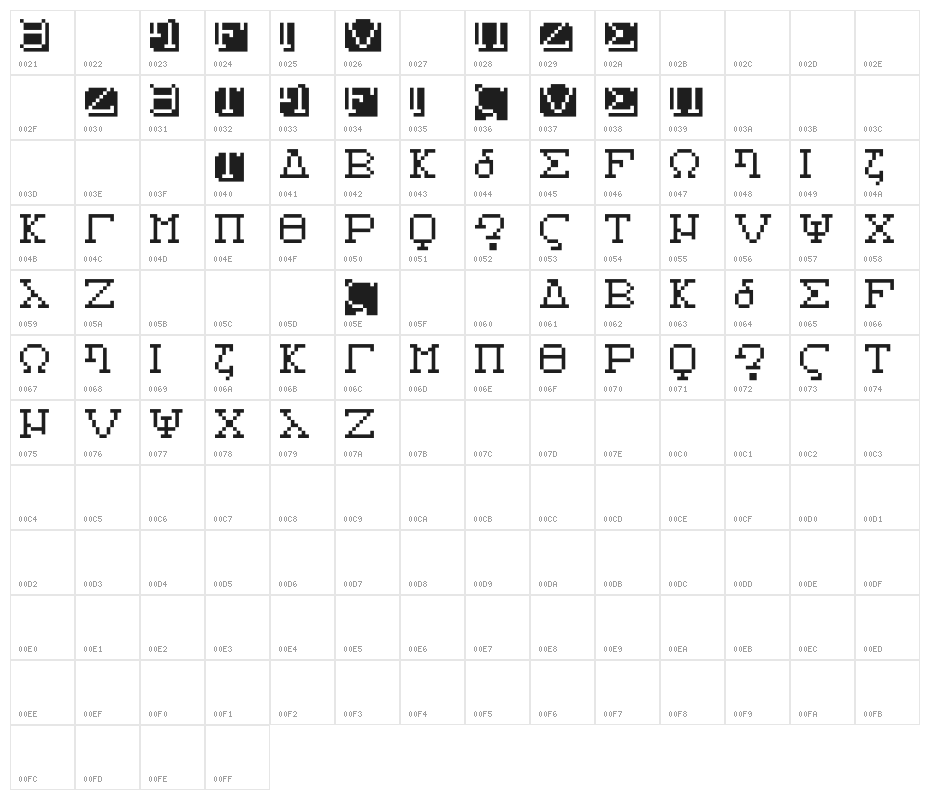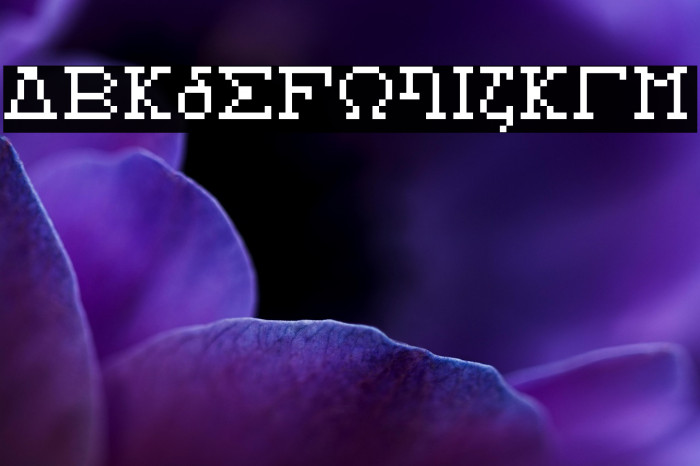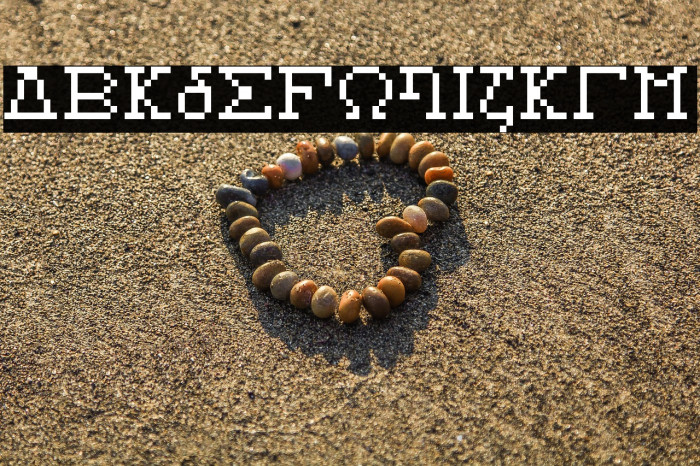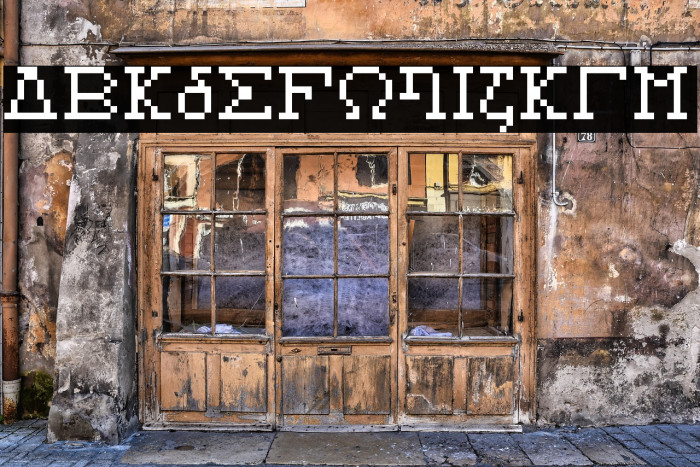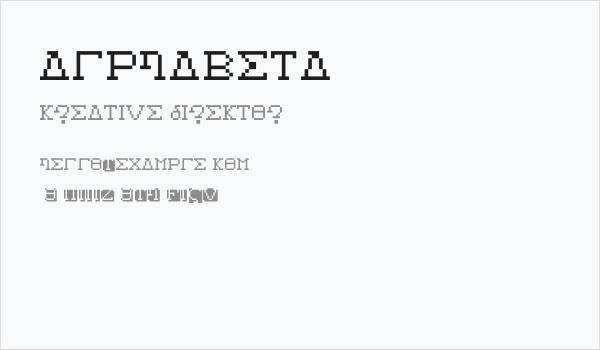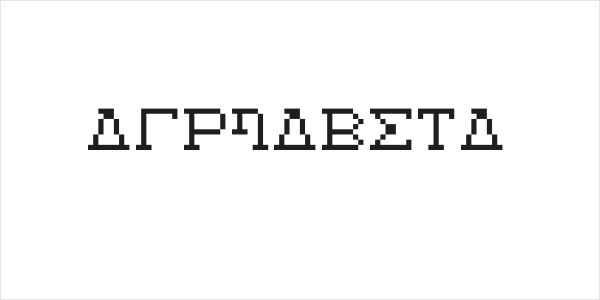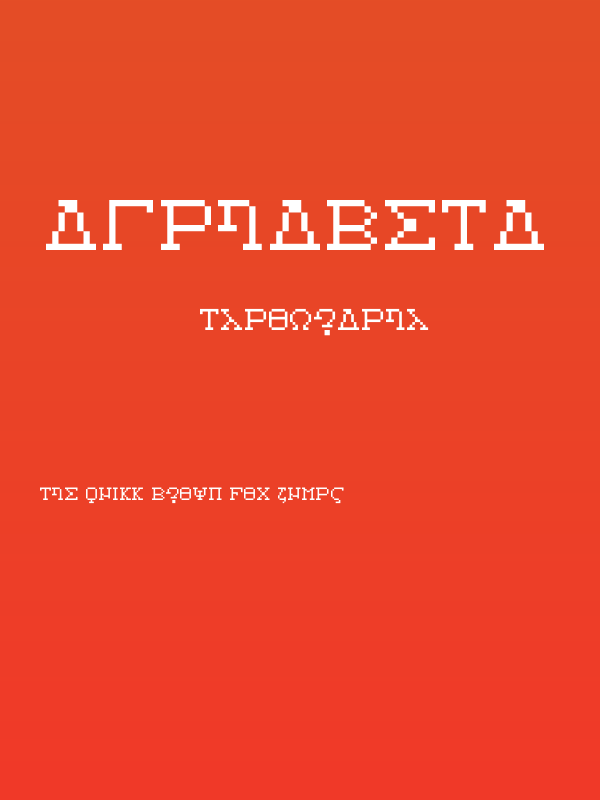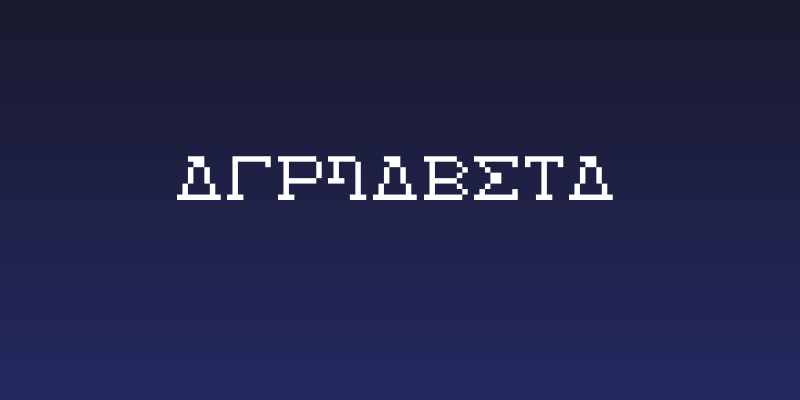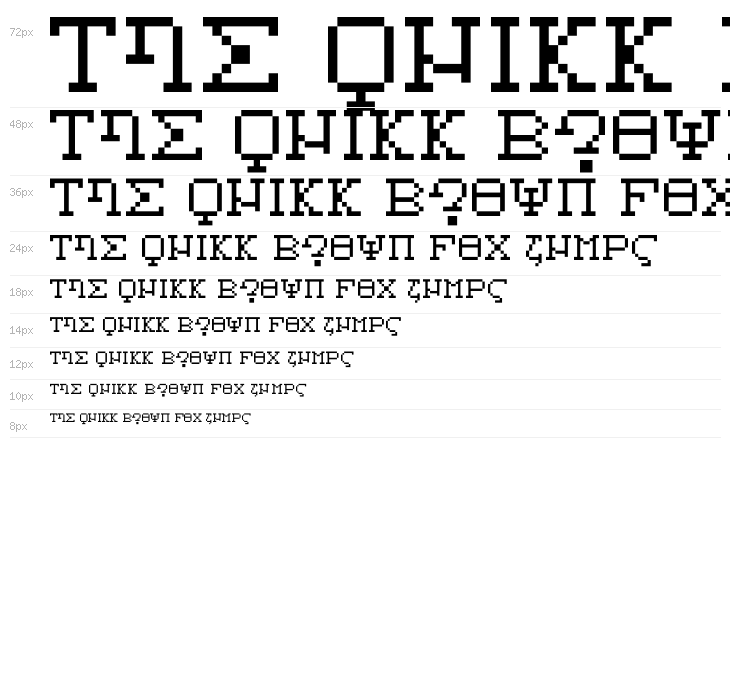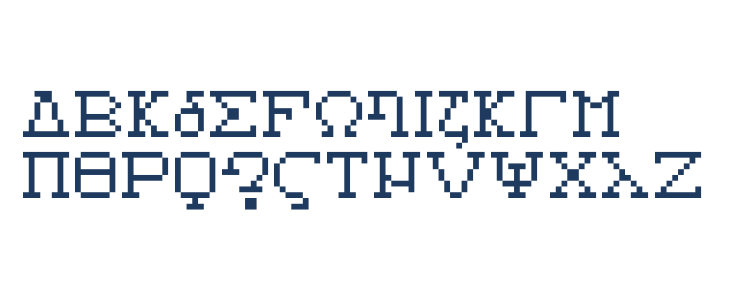
Alphabeta Font
Alphabeta Description
This font features a pixelated, blocky design reminiscent of early digital or video game typography. Each character is constructed with a grid-like precision, giving it a distinctly retro and digital aesthetic. The uppercase letters are bold and uniform, with sharp angles and straight lines dominating the design. The lowercase letters maintain the same pixelated style, ensuring consistency across the typeface. Numbers and special characters are similarly designed, making them easily recognizable and cohesive with the rest of the font. This typeface is ideal for projects that aim to evoke a sense of nostalgia or a digital, tech-inspired theme.
| Overall Style | Retro, Digital |
| Use Case | Headlines, Logos, Digital Art |
| Proposed Projects | Ideal for video game design, retro-themed posters, digital art projects, and tech-inspired branding. |